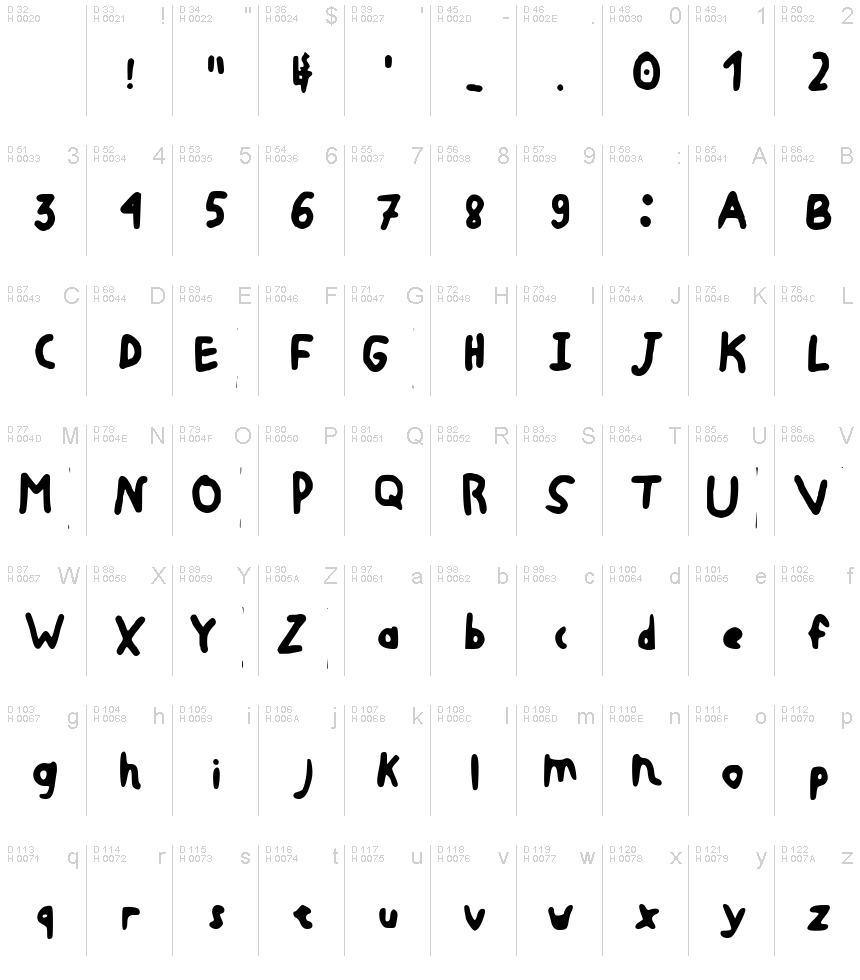
Desculitaber Lt Version Regular
Desculitaber Lt font, part of the Desculitaber family, presents a bold and distorted aesthetic that captivates with its unique visual flair. This daring display font stands out with its exaggerated strokes and playful contours, making it an excellent choice for creative projects seeking a distinctive edge.
Perfect for eye-catching headlines and artistic posters, its bold style infuses energy and personality into any design. Whether you're looking to make a statement or enhance branding materials, the Desculitaber Lt font offers a free download option that invites designers to explore its versatility across various media.
Embrace this dynamic typeface for your next project and experience the impact it brings to modern graphic design.
Perfect for eye-catching headlines and artistic posters, its bold style infuses energy and personality into any design. Whether you're looking to make a statement or enhance branding materials, the Desculitaber Lt font offers a free download option that invites designers to explore its versatility across various media.
Embrace this dynamic typeface for your next project and experience the impact it brings to modern graphic design.